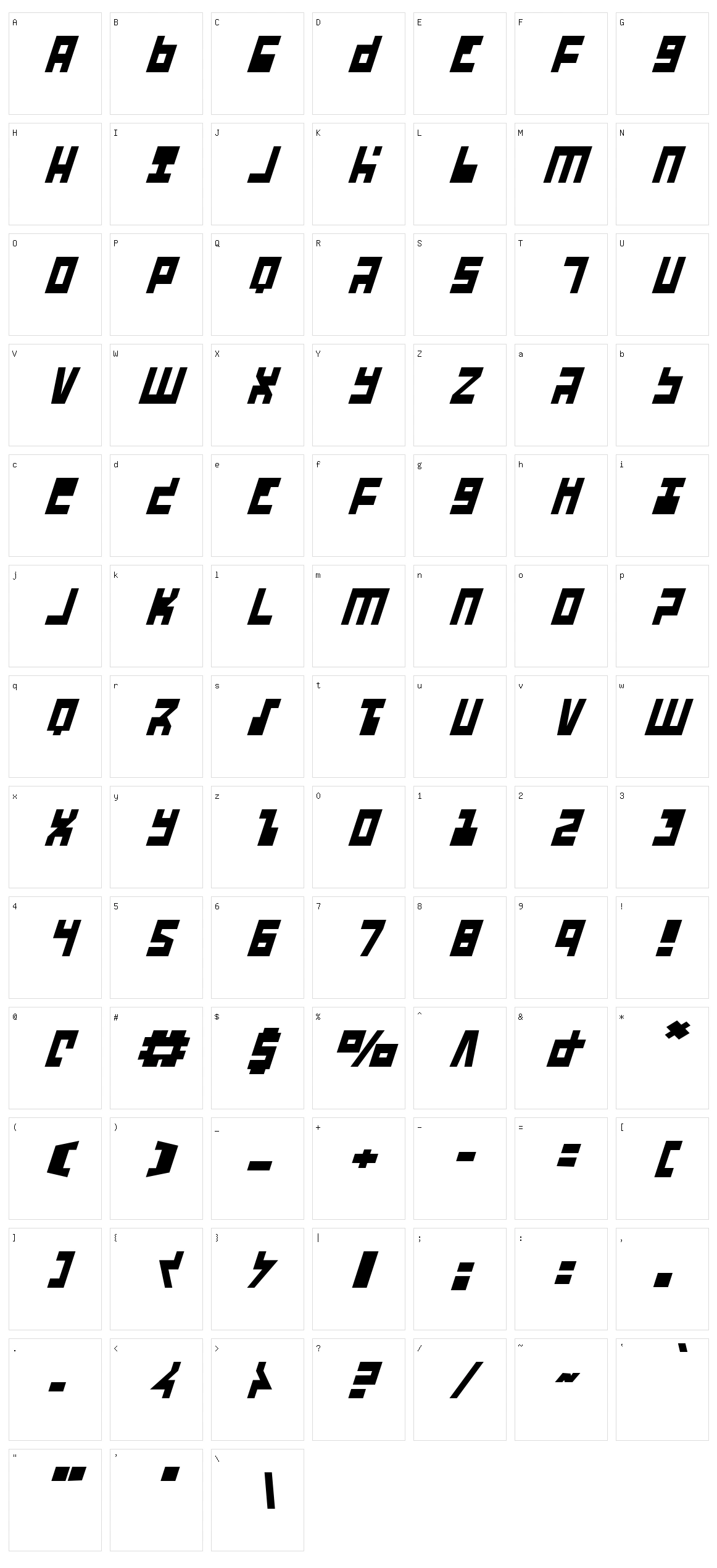
The free font Ufo Hunter is carefully designed by Iconian Fonts, showcasing a thoughtful balance of creativity and usability and falls under the Square font style. When you download the ZIP file, it contains only 188.2 KB of font files, making it lightweight and quick to download. Please review the license details below to understand permitted usage and distribution rights. If license information is not available, we recommend using this font for personal projects only or contacting the author directly for commercial usage permissions.
This font comes with the following 9 versions: Regular, Italic, Expanded, Expanded Italic, 3D, 3D Italic, Academy, Academy Italic and Leftalic.